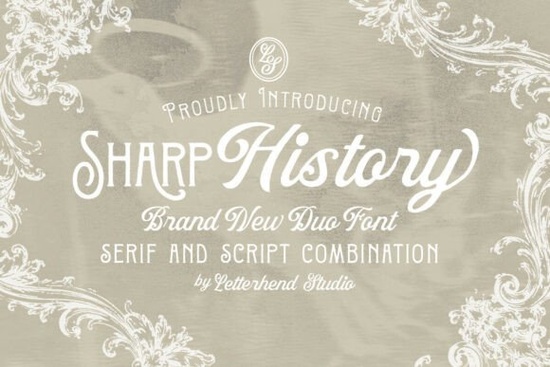
If you're looking for a font that blends vintage elegance with modern versatility, Sharp History is worth a closer look. This font duo pairs a decorative serif with a flowing script two complementary styles that work together to create designs full of character and charm. Whether you’re crafting wedding stationery, designing product packaging, or personalizing greeting cards, Sharp History offers the kind of timeless appeal that feels both classic and fresh.
What makes Sharp History stand out from other vintage fonts?
Many vintage-inspired fonts lean heavily into either ornate decoration or overly rigid structure. Sharp History strikes a balance. The serif component features subtle flourishes and refined detailing without overwhelming your layout, while the script maintains a natural, hand-lettered rhythm that’s easy to read yet expressive. This duality gives you flexibility: use the serif for headlines or logos, and the script for names, quotes, or accent text.
For designers who value cohesion across projects, having two matching styles in one package simplifies branding. You don’t have to hunt for a script that “goes with” your serif the pairing is already thoughtfully designed. That’s especially helpful when creating invitation suites, where consistency matters but variety keeps things visually interesting.
How can small businesses and crafters use this font effectively?
Print-on-demand sellers often need fonts that photograph well on mugs, tote bags, or apparel and Sharp History delivers. The clean lines of the serif hold up at small sizes, while the script adds personality without becoming illegible. For handmade soap labels, boutique packaging, or Etsy shop logos, it conveys sophistication without feeling stiff.
Crafters working on vinyl cutting or embroidery will appreciate how cleanly the characters render. Both styles avoid extreme thin strokes or overly complex ligatures that might cause issues in production. And because the font includes standard glyphs plus stylistic alternates (depending on the version you download), you can add subtle variation without switching typefaces.
If you enjoy mixing typefaces, Sharp History also plays well with others. Try pairing its serif with a neutral sans-serif for contrast, or layer the script over minimalist layouts for a focal point. Just remember: less is more. One or two fonts per project usually creates the clearest visual hierarchy.
Are there similar fonts worth comparing?
If you like the refined feel of Sharp History but want alternatives to explore, Creative Fabrica offers several other serif options with vintage flair. For example, Milk and Honey leans into soft, romantic curves ideal for bridal or baby-themed designs. Richmond Grovelyn brings a more structured, editorial vibe, great for book covers or magazine headers.
Looking for something bolder? Strong Font offers high-contrast letterforms with dramatic serifs, perfect when you need impact. And if coastal or retro aesthetics appeal to you, Surfside Paradise mixes mid-century inspiration with playful energy. Each of these has its own mood, so your choice depends on whether you want warmth, authority, whimsy, or nostalgia.
Practical tips for using Sharp History in real projects
- Test readability first. Even elegant scripts can become hard to decipher at small sizes or on textured backgrounds. Print a sample or view it on-device before finalizing.
- Use OpenType features wisely. If your design software supports it, toggle stylistic sets or swashes sparingly especially in body text.
- Pair with ample whitespace. Vintage fonts shine when they’re not crowded. Give your typography room to breathe in layouts.
- Stick to one style per element. Avoid mixing the serif and script within the same word it can confuse the eye unless done intentionally for effect.
Before you start your next project, ask yourself: does this design need personality, polish, or both? If the answer is yes, Sharp History could be the quiet powerhouse that ties everything together without shouting.